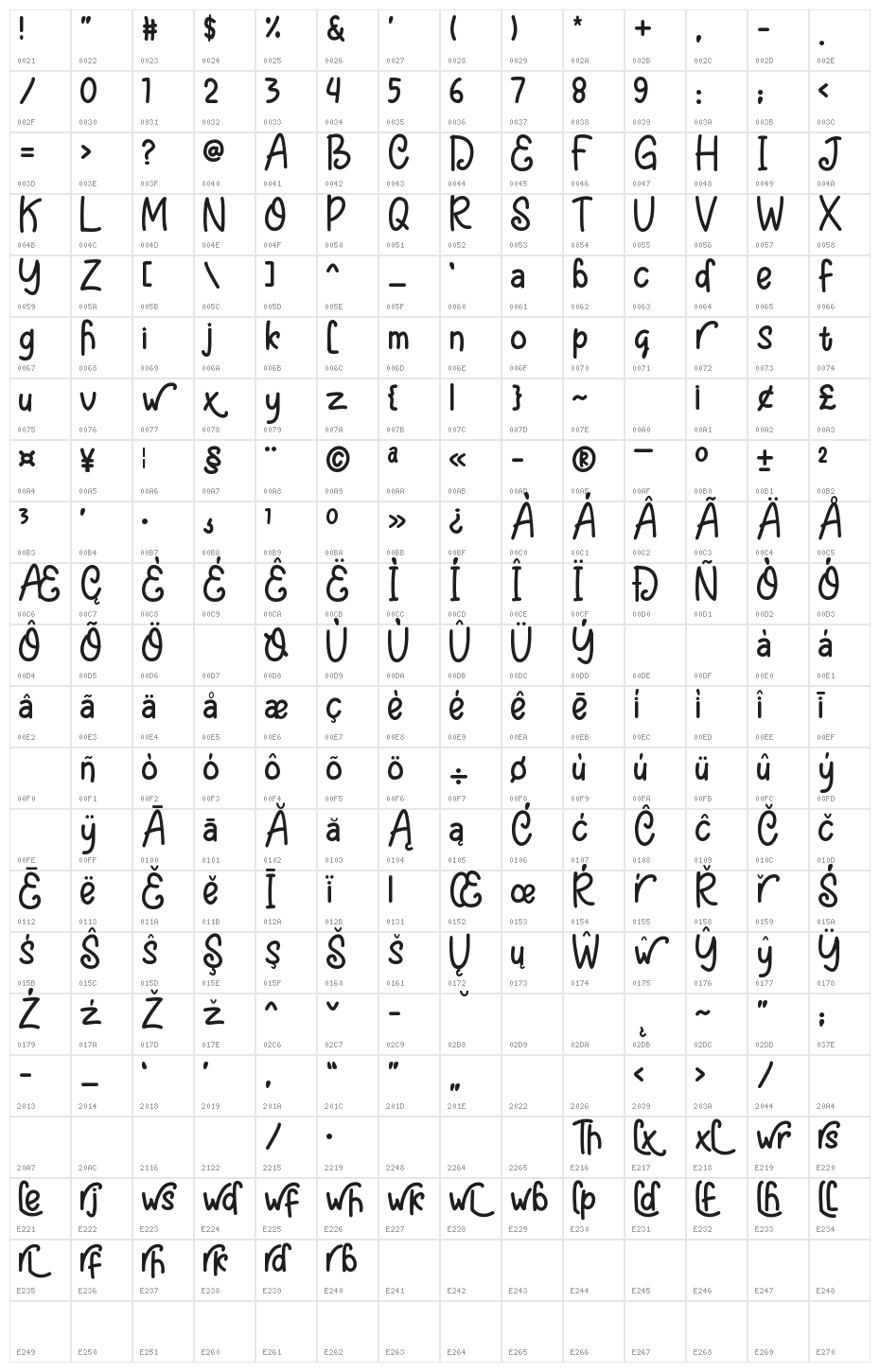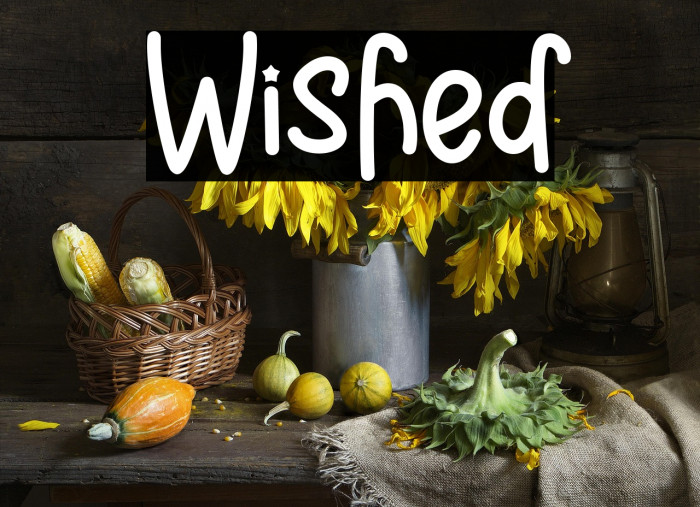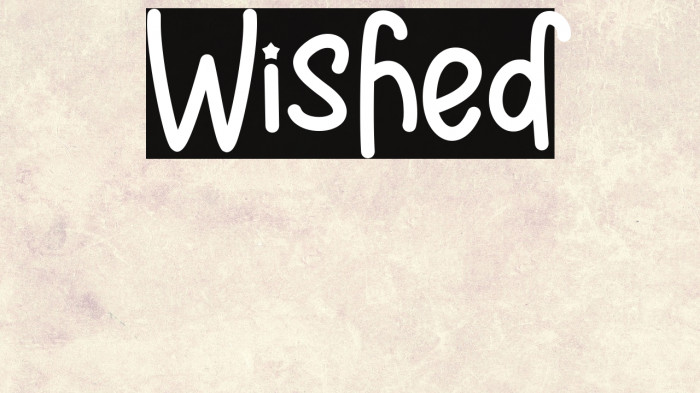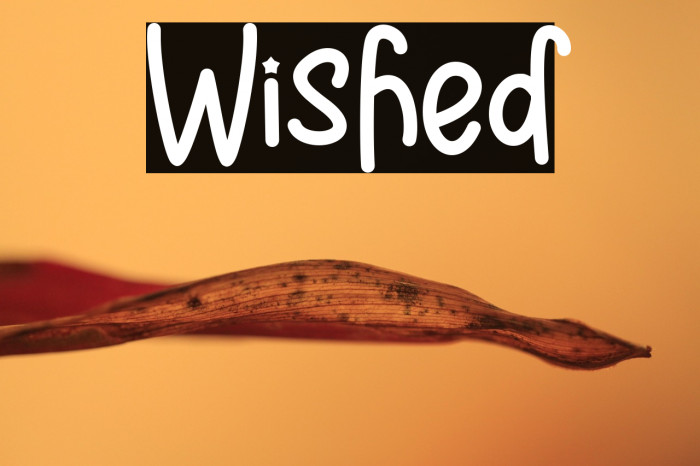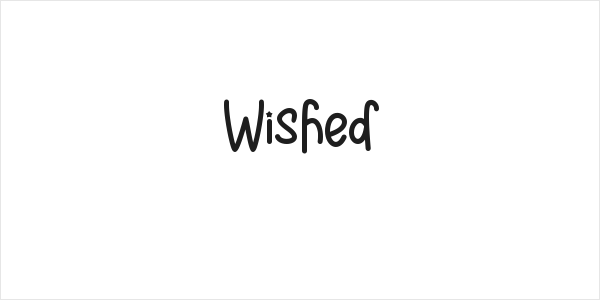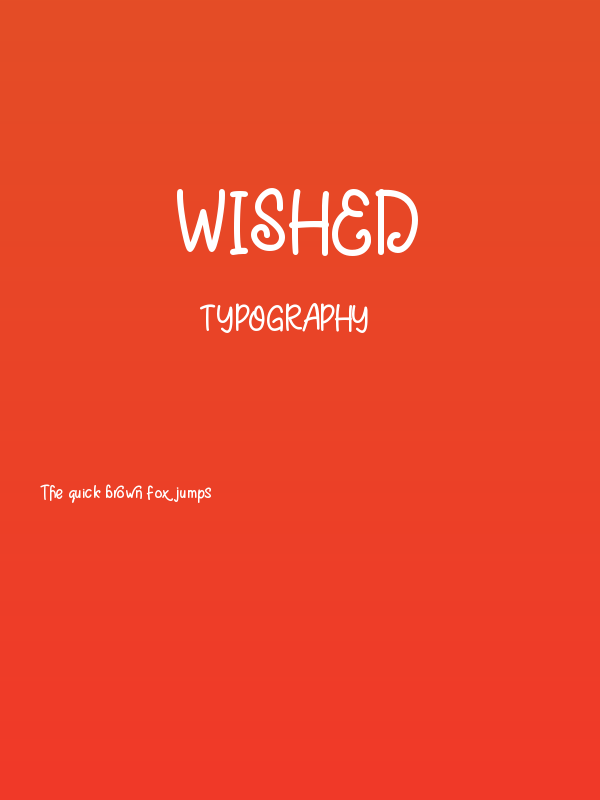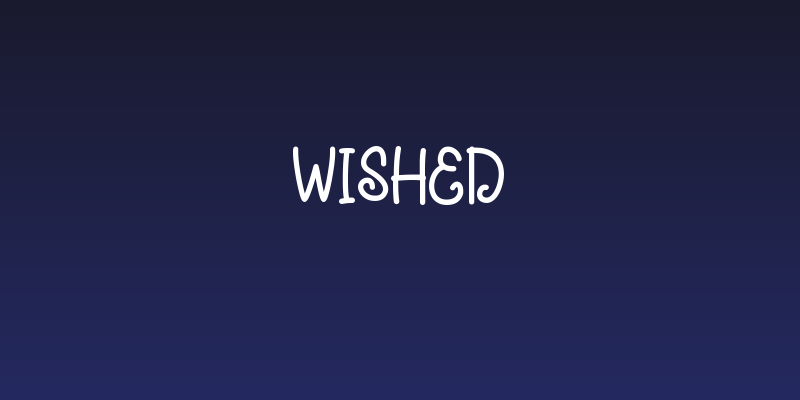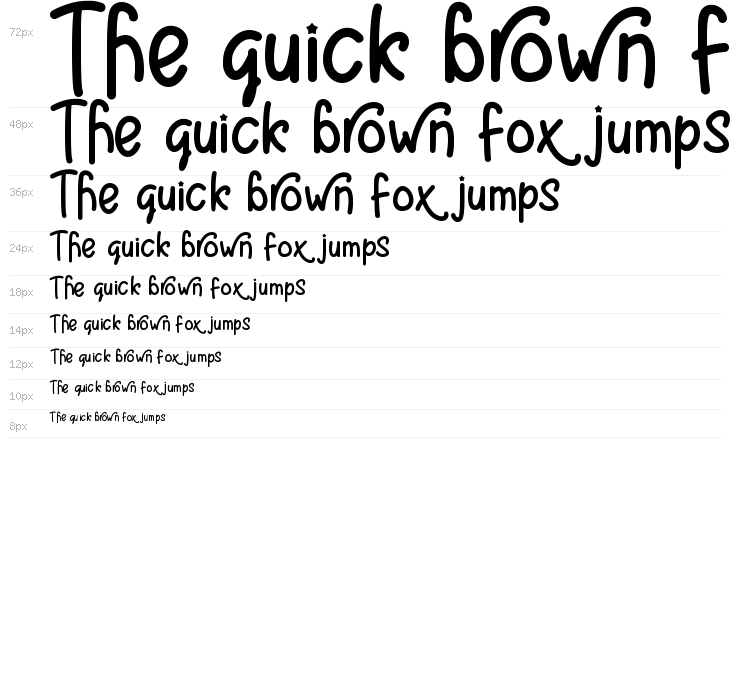
Wished Font
Wished Description
This playful and whimsical font features a handwritten style with a casual and friendly appearance. The characters are rounded and slightly irregular, giving them a lively and informal feel. The uppercase letters are bold and prominent, while the lowercase letters maintain a consistent flow with a touch of uniqueness in each character. Numbers and special characters are designed to match the overall playful aesthetic, making the font suitable for creative and fun projects. The strokes are consistent in thickness, providing a balanced look across all characters.
| Use Case | Headlines, Logos, Informal text |
| Proposed Projects | Ideal for children's books, greeting cards, playful branding, and social media graphics. |